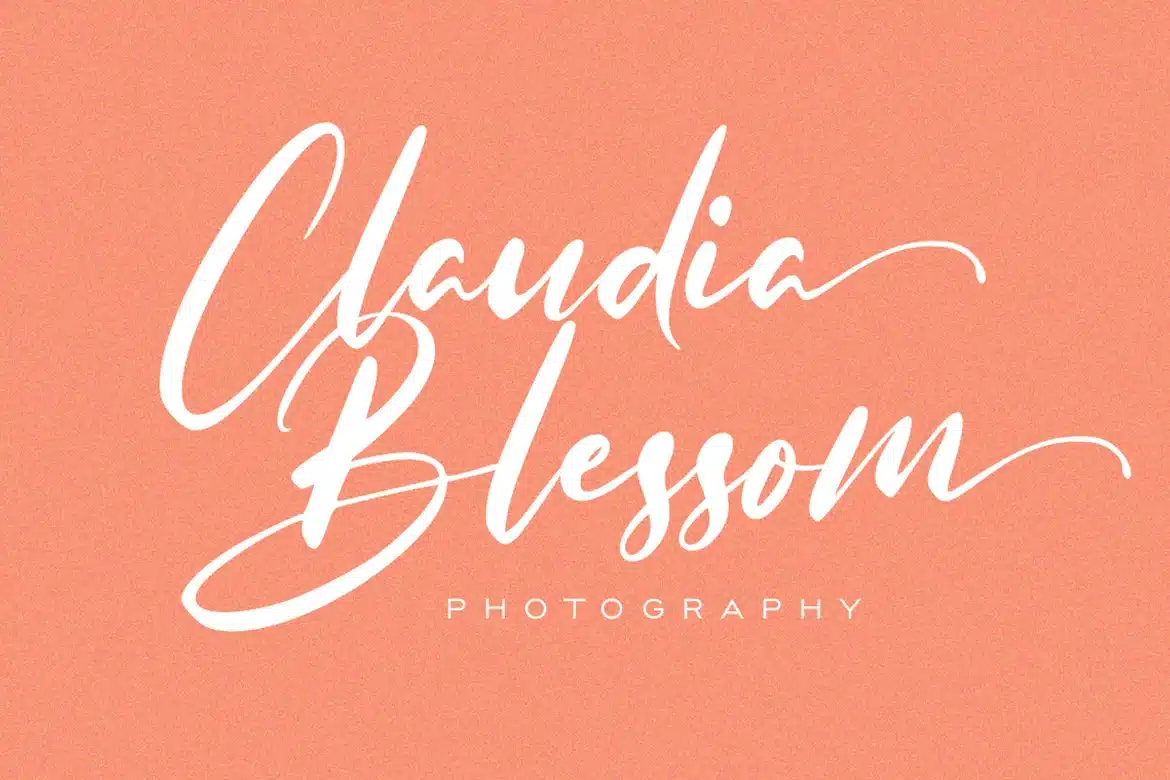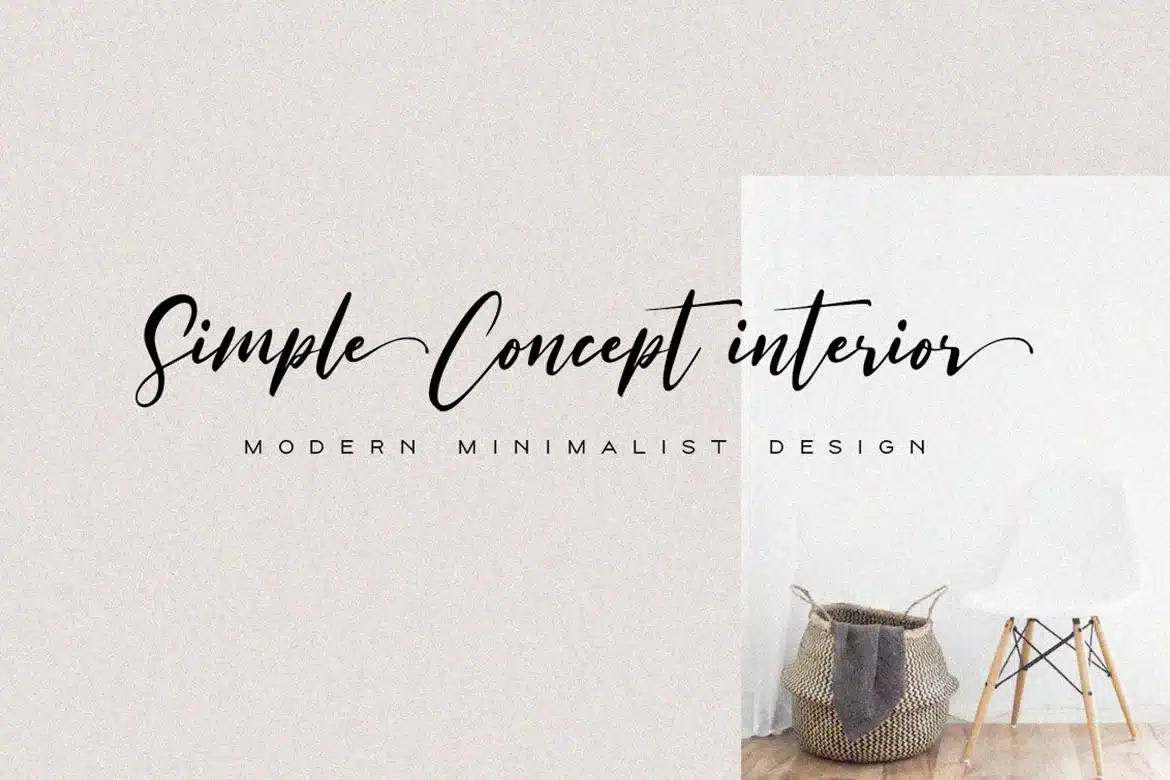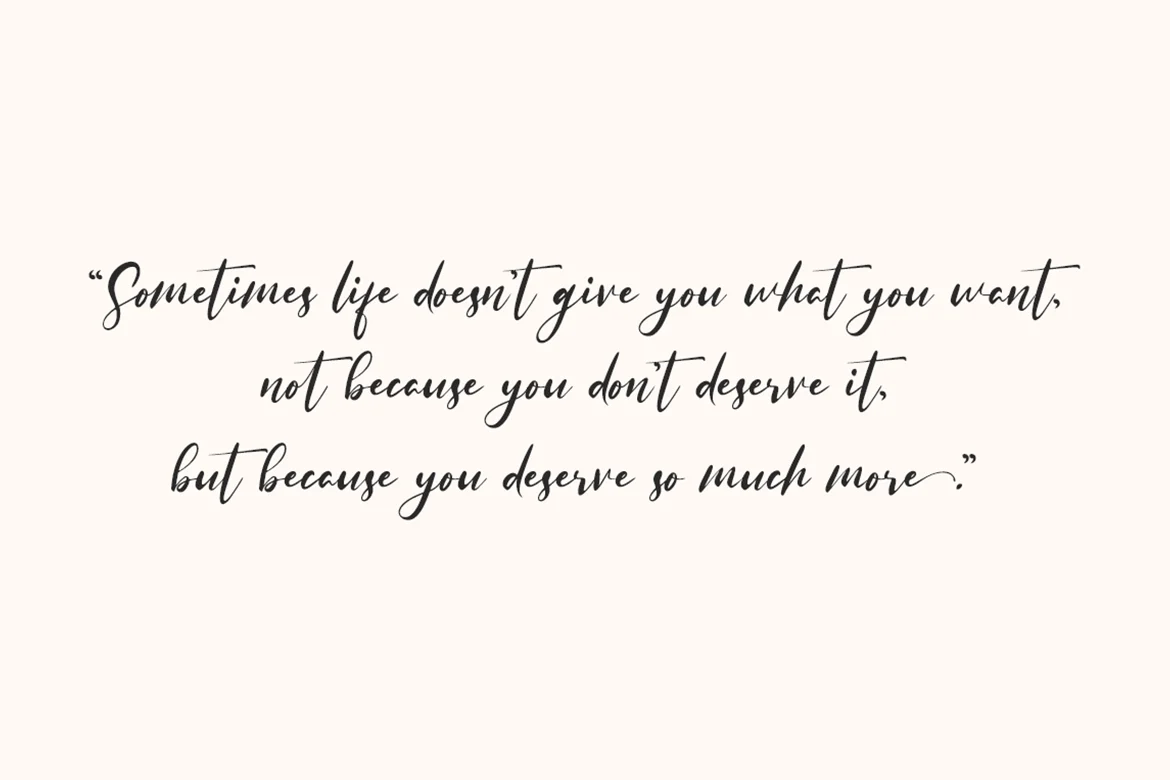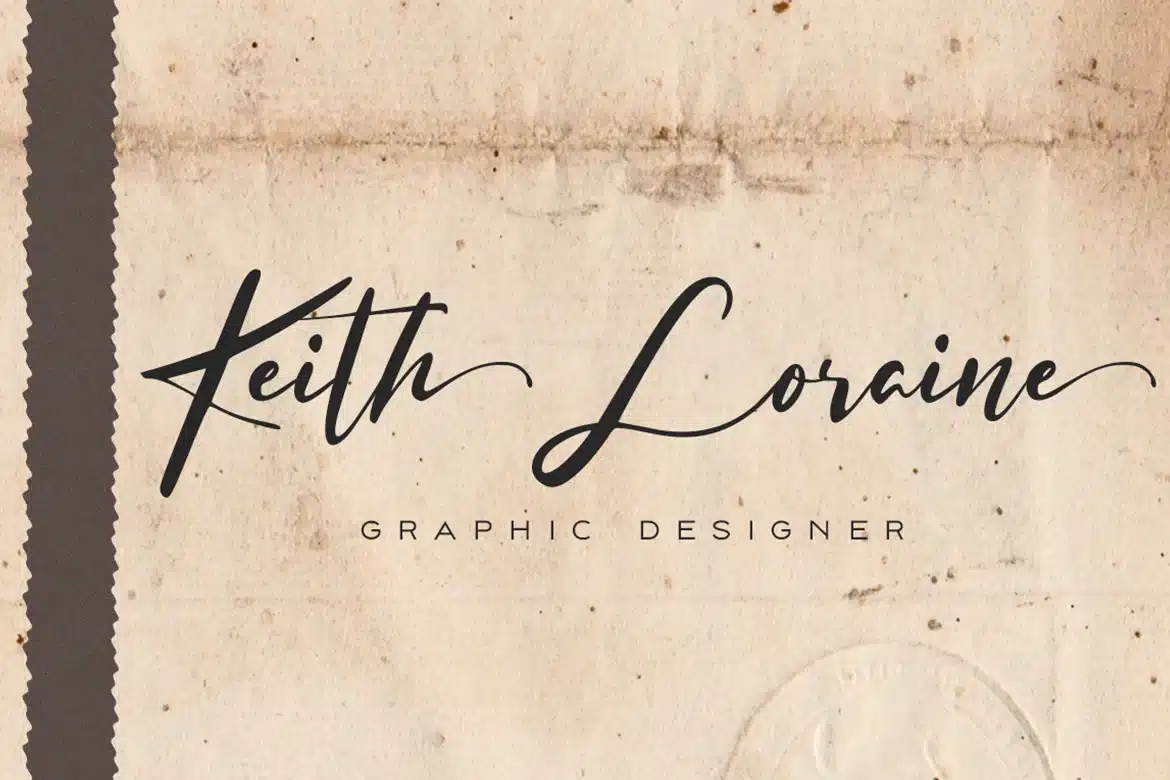
Really Distinct Font
This font is about fleeting vision, touch of moments. some letters may be illegible, but their shapes arouses emotions. sometimes in design emotions are more important. our brain can uncode the letter shapes. It includes full set of uppercase and lowercase letters, multilingual symbols, numerals, punctuation and ligatures.
The font has bold texture.